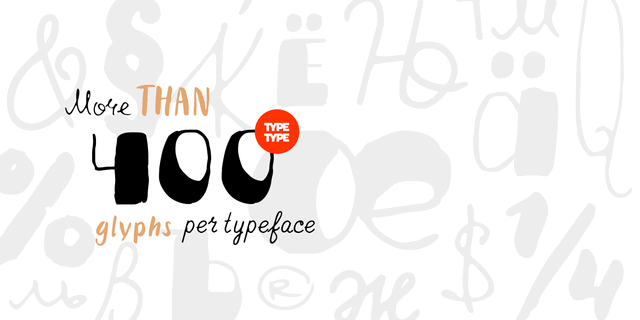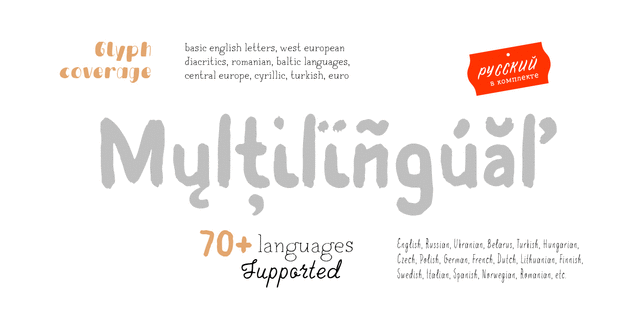
About TT Rabbits ITT Rabbits is a super emotional hand-written fontfamily that unites 10 different fonts. We’ve united these fonts with one common theme — childhood. Use these fonts to create any products for kids — children’s books layouts, mobile applications for children, as well as nursery interior design. We’ve given each rabbit a unique name. The names are arranged as the first 10 letters of the Latin alphabet: A — April, B — Bro, C — Chilli, D — Dummy, E — Elf, F — Fatso, G — Goody, H — Hyper, I — Idol, J — Junior. Each rabbit has its own character, and you’ll definitely like TT Rabbits because of that. We’ve used an individual writing tool for every font. All the fonts were created on paper first and then digitized. Now, what’s your favorite rabbit? Typeface designed by Ivan Gladkikh in TypeType studio in 2016.
Associations for font family TT Rabbits ITypeface personality and character:
delicious, kind, slim, tall, naive, cute, Soft, handicraft, manual, eco-friendly, natural, warm, dynamic, agile, appetizing, healthy, playful, funny, cool, beautiful, vegetable, peppy, festive, farmer, craft brewed, glad, mischievous, floral, expressive, artistic, summer, original, fresh, fashionable, alive, confidence, thin, easy, distinctive, air, man-made, cozy, affable, friendly, pleasant, green, intimate, fragile, spring, home-made, family, home, organic, Artisanal, vernacular
children's book, shop, dessert, entertainment, celebration, camp, school, gifts, confectionery, cake, diary, toy, game, country house, retail, recreation, cafe, flowers, nature, food, diet, breakfast, handmade, notebook, animation, interior, family, Cartoon, Spring, animals, selfie, Hygge, graphics, illustration, house, morning, dawn Typeface associated with age: